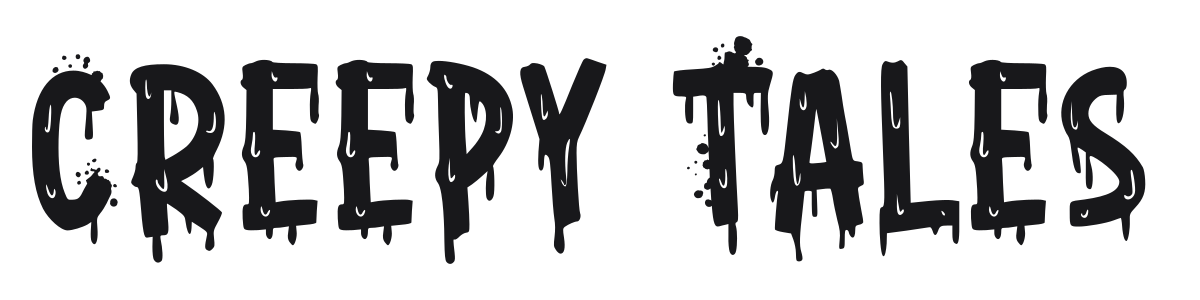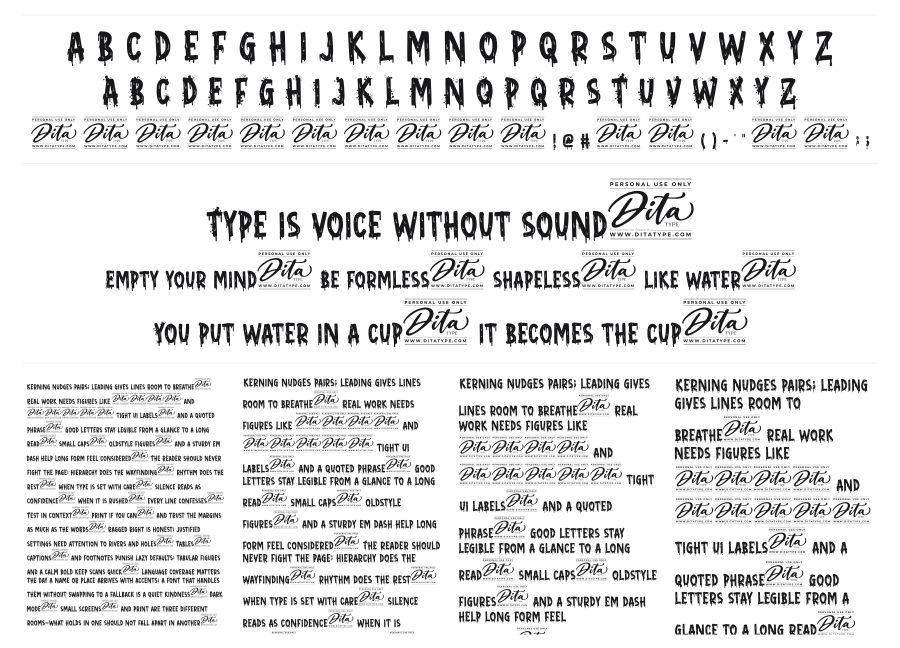
Creepy Tales
Creepy Tales is a bold horror display font built around a dripping, melting visual effect. Each character looks as though it's been painted in thick ink and left to bleed downward, with irregular driplines hanging from the base of every stroke. It has the raw energy of a horror movie title card.